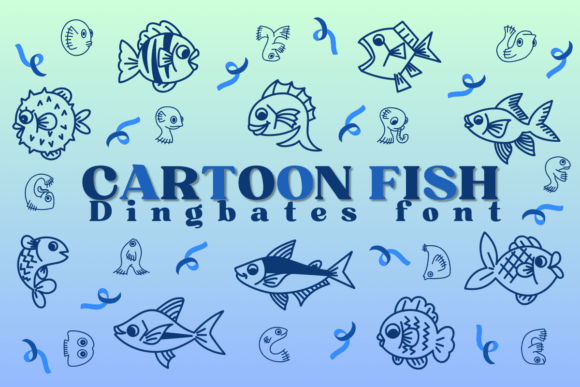
The Catch: How Cartoon Fish Font Hooked My Heart
I still remember the design project that led me to discover the charming Cartoon Fish Font. I was working on a whimsical wedding invitation for a client’s underwater-themed beach wedding. The goal was to create something playful, yet elegant. As I scrolled through font after font, nothing seemed quite right – until I stumbled upon Cartoon Fish. Its quirky, sketch-style charm instantly resonated with the project’s vibe. I was hooked! 🎣
So, what makes Cartoon Fish Font a standout in the dingbats category? Here’s my take:
- ✨ Unique Sketch Style: Adds a personal, hand-drawn feel to any project.
- ✅ Versatility: Perfect for a wide range of creative projects, from wedding invites to DIY crafts.
- 🎉 Fun and Playful: Injects a dose of whimsy into designs, making them more engaging.
But, like any font, it’s not without its quirks:
- 🤔 Limited Text Use: While great for headings or short texts, it might not be the best choice for lengthy paragraphs.
- ⚠️ Glyph Overload: With so many fun glyphs, it can be overwhelming to navigate and select the right ones.
The Story Behind Cartoon Fish Font
Legend has it that Cartoon Fish Font was inspired by a designer’s childhood fascination with marine life. The designer, an avid fish enthusiast, aimed to capture the playful essence of ocean creatures in a font. Through late nights and early mornings, the font evolved, bringing joy to designers and crafters worldwide.
| Font Name | Cartoon Fish Font |
| Author | Chonada |
| Is Cartoon Fish Font suitable for professional branding? | Absolutely! Its unique style can add a memorable touch to logos and branding materials. |